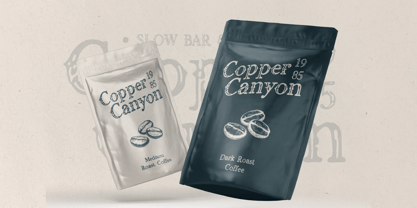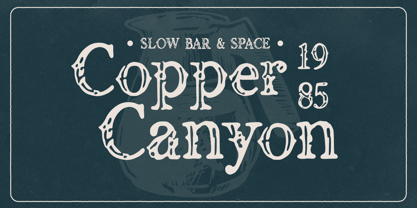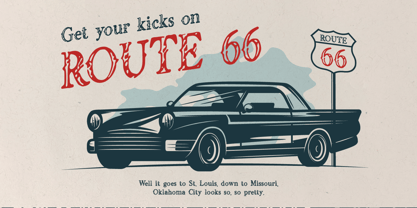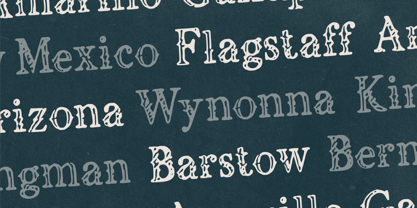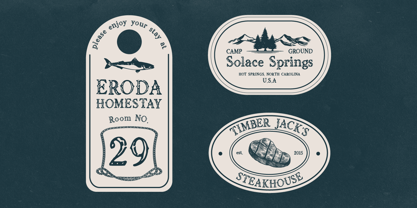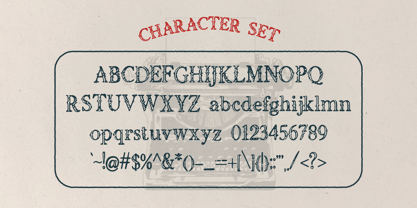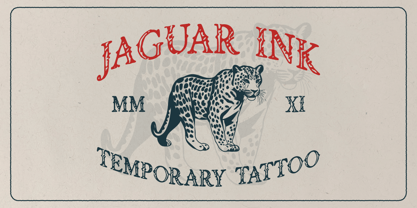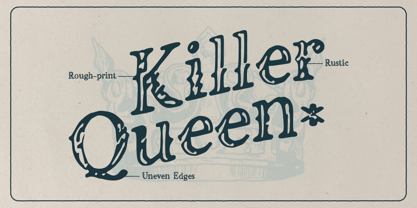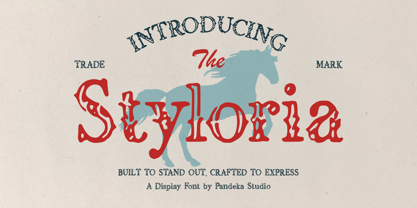
Styloria
by Pandeka Studio
The Styloria Font Family was designed by Sagara Nararya and published by Pandeka Studio. Styloria contains 1 styles. More about this family
Styloria – Vintage Rodeo Display Typeface
Styloria is a bold vintage display font with a western aesthetic and classic lettering style. Its rustic charm makes it perfect for rodeo-themed designs, posters, labels, badges, signage, apparel, and branding. With a timeless design and strong typography, Styloria captures the authentic spirit of the Old West, adding a unique, rugged character to any project.
• Full Character Set: Uppercase, lowercase, numbers, symbols, and punctuation